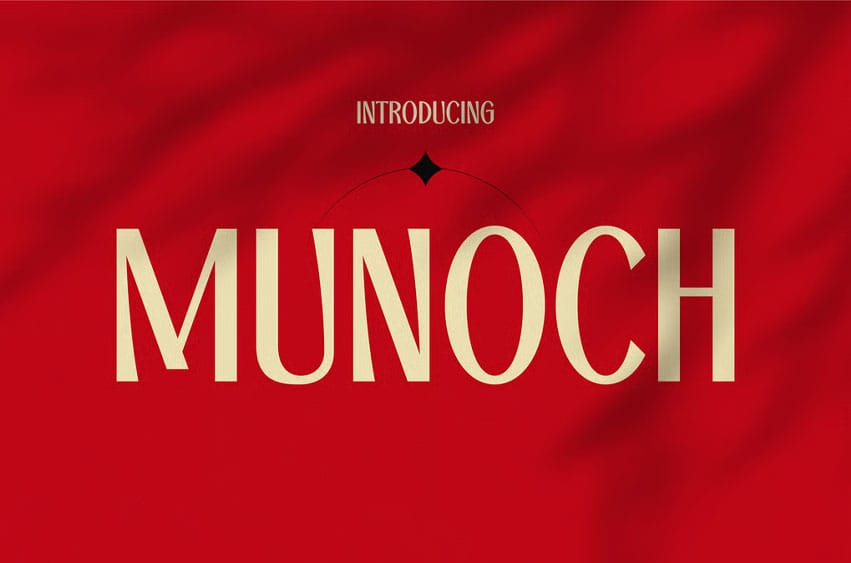
Munoch Font blends nostalgic aesthetics with contemporary precision, creating a typeface that radiates refined confidence. Its tall, geometric letterforms, paired with crisp terminals and balanced spacing, evoke the elegance of mid-century design while remaining perfectly suited for modern branding. Each stroke delivers a harmonious rhythm—neither too bold nor too delicate—making it ideal for projects that demand both vintage flair and professional clarity.
With its smooth contrast and subtle angular edges, MUNOCH channels a timeless energy that feels both nostalgic and forward-thinking, perfect for logos, magazine headers, and high end product packaging.
Whether you’re crafting a fashion editorial, restaurant identity, or high-end product label, MUNOCH gives your words a visual voice of authority and style. It draws the eye with its bold presence while maintaining a sense of balance and grace. Designers looking for a retro-modern font that feels sophisticated, confident, and versatile will find MUNOCH a perfect fit for branding, advertising, posters, and lifestyle packaging.
Key Features : ✦ Distinct Retro Personality — Inspired by 1960s lettering with a modern geometric twist. ✦ Clean, Readable Forms — Excellent contrast for headlines and signage. ✦ Versatile Use Cases — Perfect for fashion brands, cafés, or editorial titles. ✦ Sophisticated Energy — Adds depth to any creative project. ✦ Effortless Visual Balance — Carefully proportioned for smooth text flow and impact.